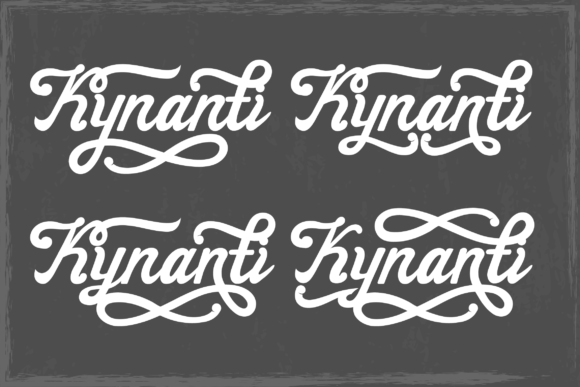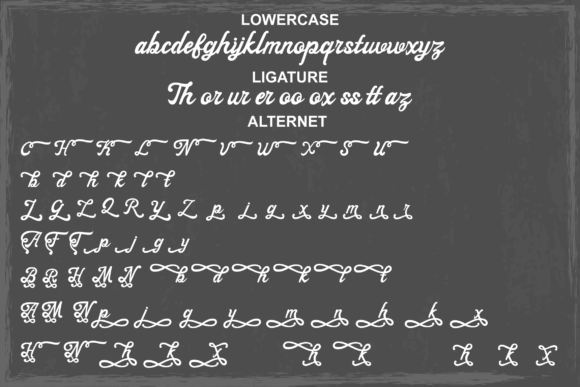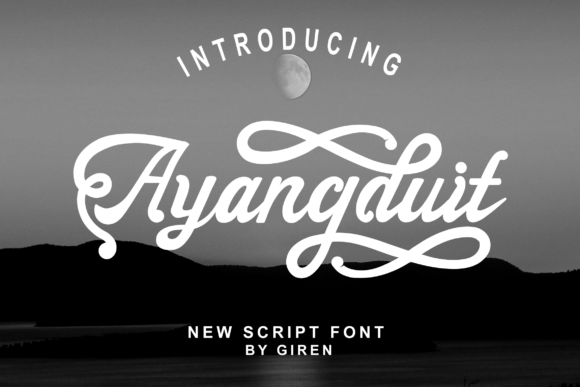
Ayangduit Font
The Ayangduit is a bold and striking script font. It’s suitable for logos, clothing, quotes, business cards, posters, watermarks, signatures, magazines, web, hand-made, and others.